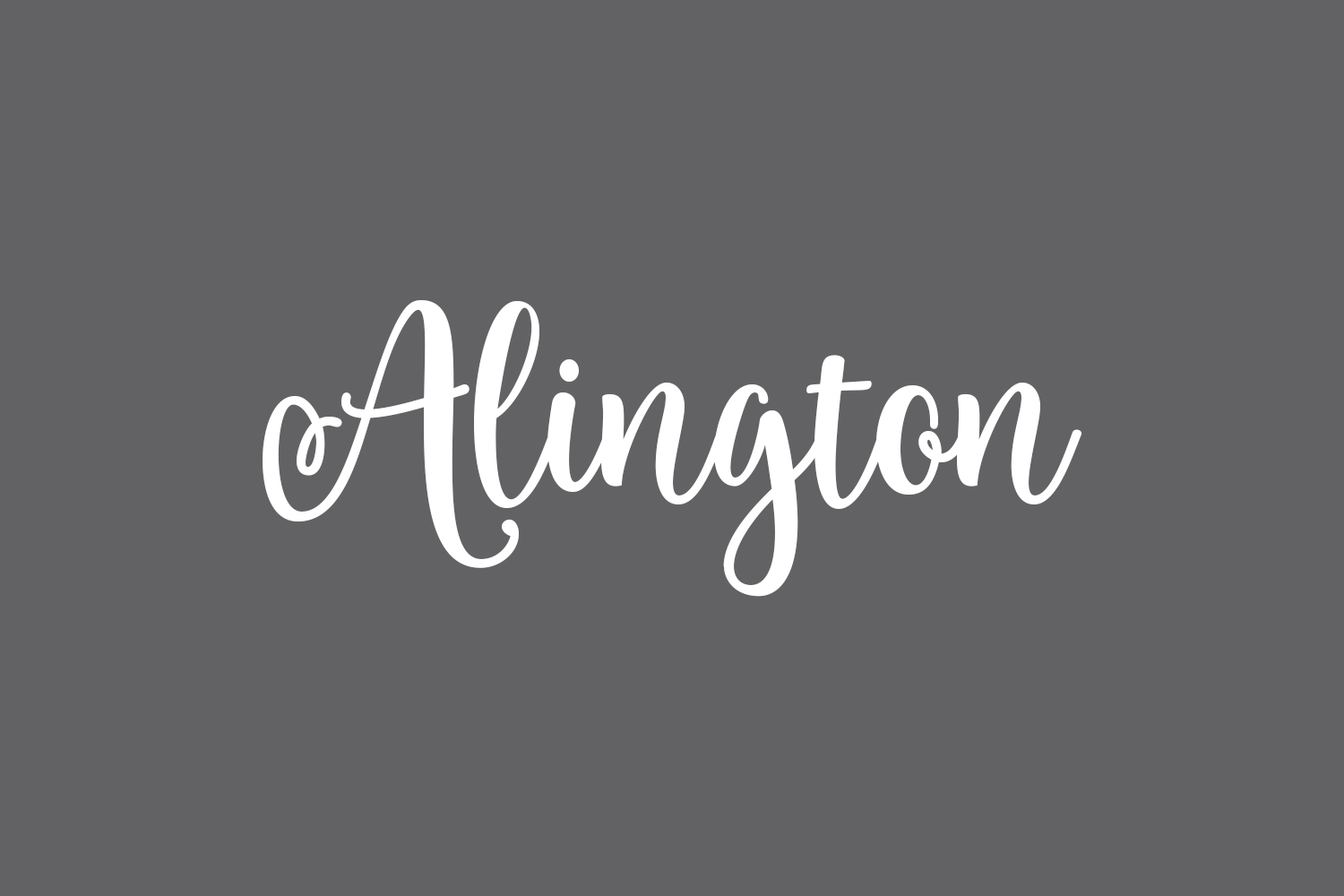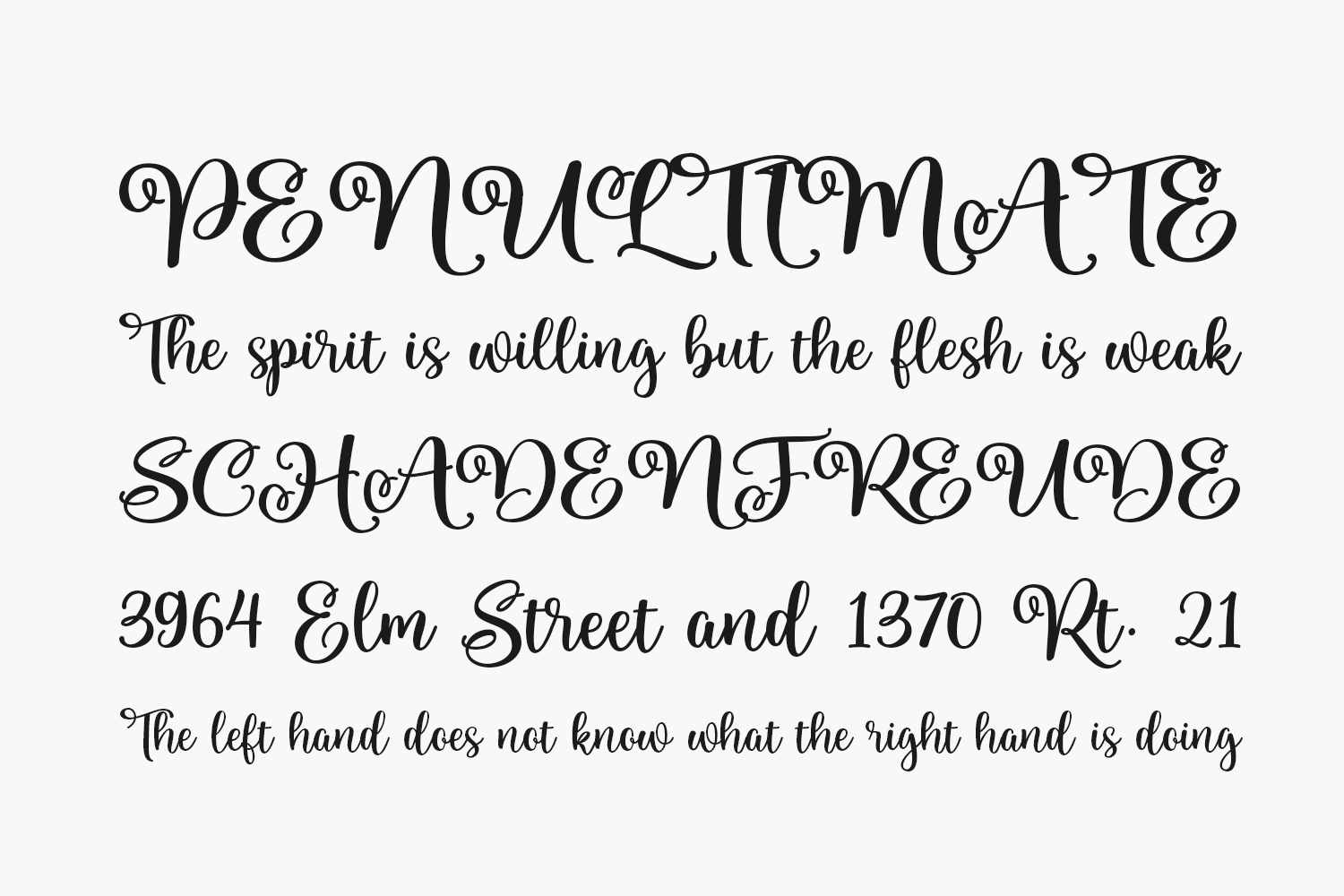
Experience the contemporary charm of Alington Free Font, a delightful calligraphy typeface where characters dance gracefully along the baseline. This font adds a touch of elegance to invitations, greeting cards, branding materials, business cards, quotes, posters, and more. Elevate your designs and make them truly stand out. Download the font for free if you need it for personal use or purchase the full version for commercial use.